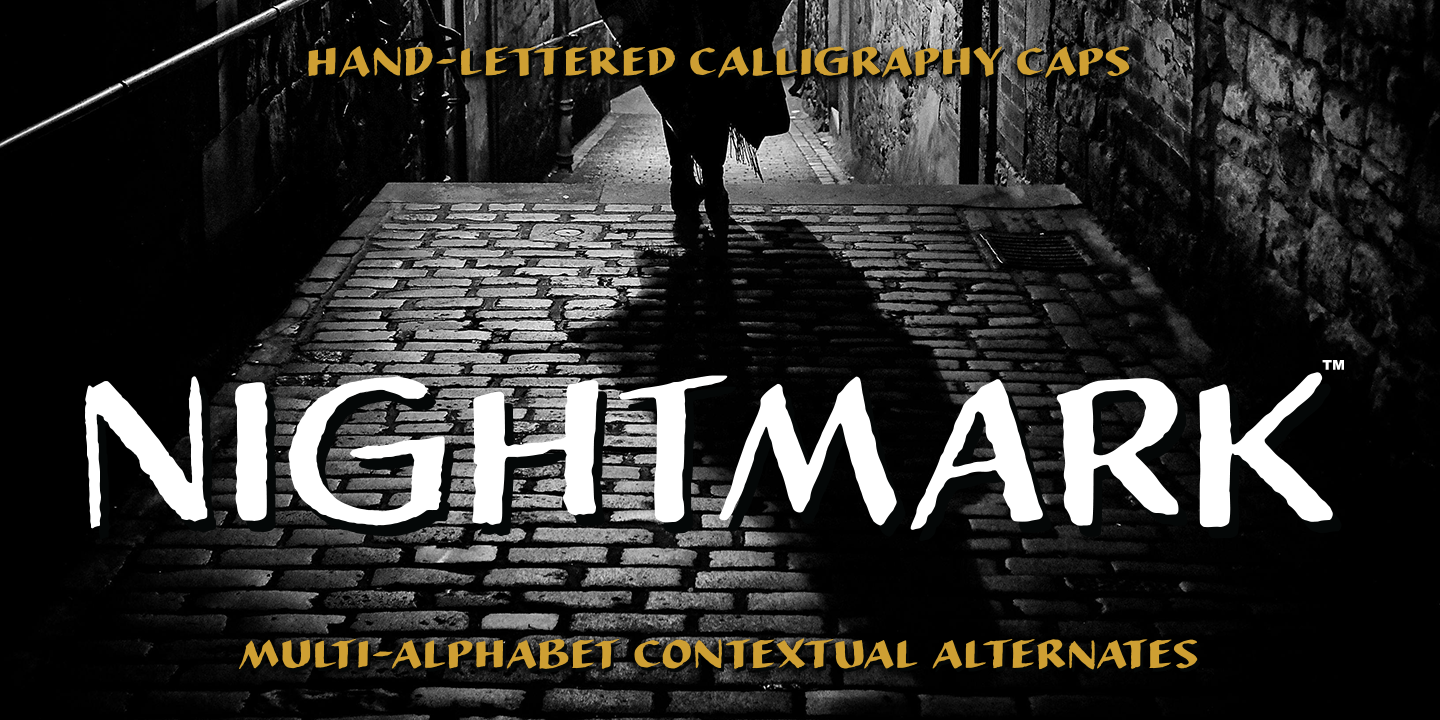
Nightmark BB Font Free Download is a dynamic and often gritty typeface, perfect for projects that demand a powerful, urban, or comic-book inspired aesthetic. Envision it making a statement on bold graphic novel covers, energetic video game titles, striking event posters, or rebellious streetwear branding. Its raw and impactful character also makes it an excellent choice for heavy metal album art, distinctive podcast logos, and attention-grabbing social media campaigns. Whether your aim is to convey a sense of strength, edge, or a handcrafted feel, Nightmark BB Font offers the stylistic punch to elevate your creative vision.
What makes Nightmark BB Font truly exciting is its unmissable personality and raw energy. Often inspired by comic book lettering or urban art, it carries a distinctive texture or irregular line work that gives it an authentic, powerful vibe. This isn't just another display font; it's a meticulously crafted typeface that injects an immediate sense of character and impact into any text. Designers will appreciate its strong visual appeal and how it can instantly infuse a design with a dynamic, bold presence, making it a compelling choice for projects that need to stand out and make a memorable statement.
The Nightmark BB Font family, while typically designed with its unique display qualities in mind, often provides versatility through different weights or styles. You might find a Regular weight that captures its core aesthetic, potentially accompanied by Bold versions for increased impact, or even Distressed variations to enhance its gritty feel. Some families might also offer stylistic alternatives that add further creative options. This focused yet adaptable range within the family ensures that Nightmark BB Font Free Download can be effectively utilized across various applications where its distinctive bold and often rugged style is desired.